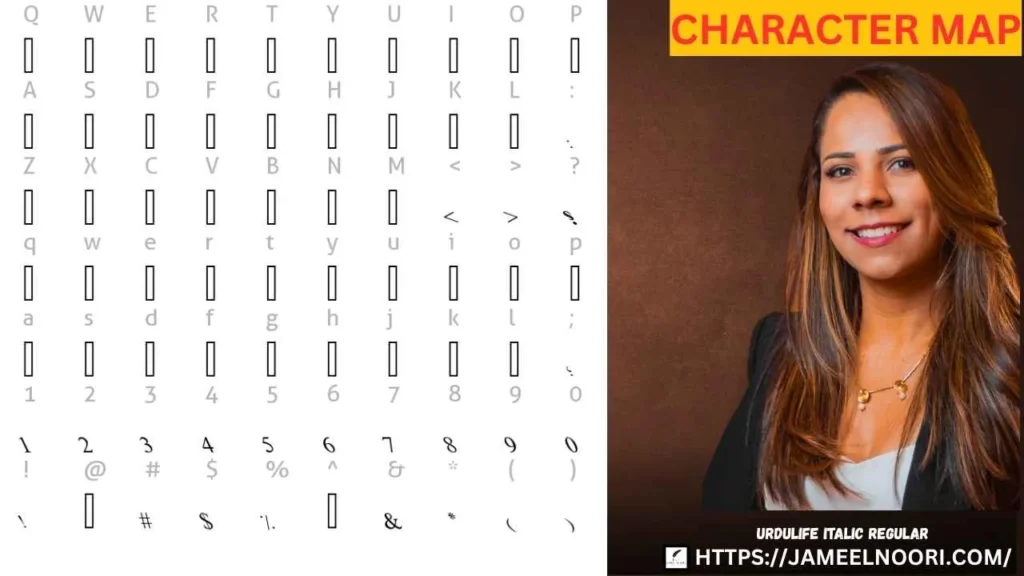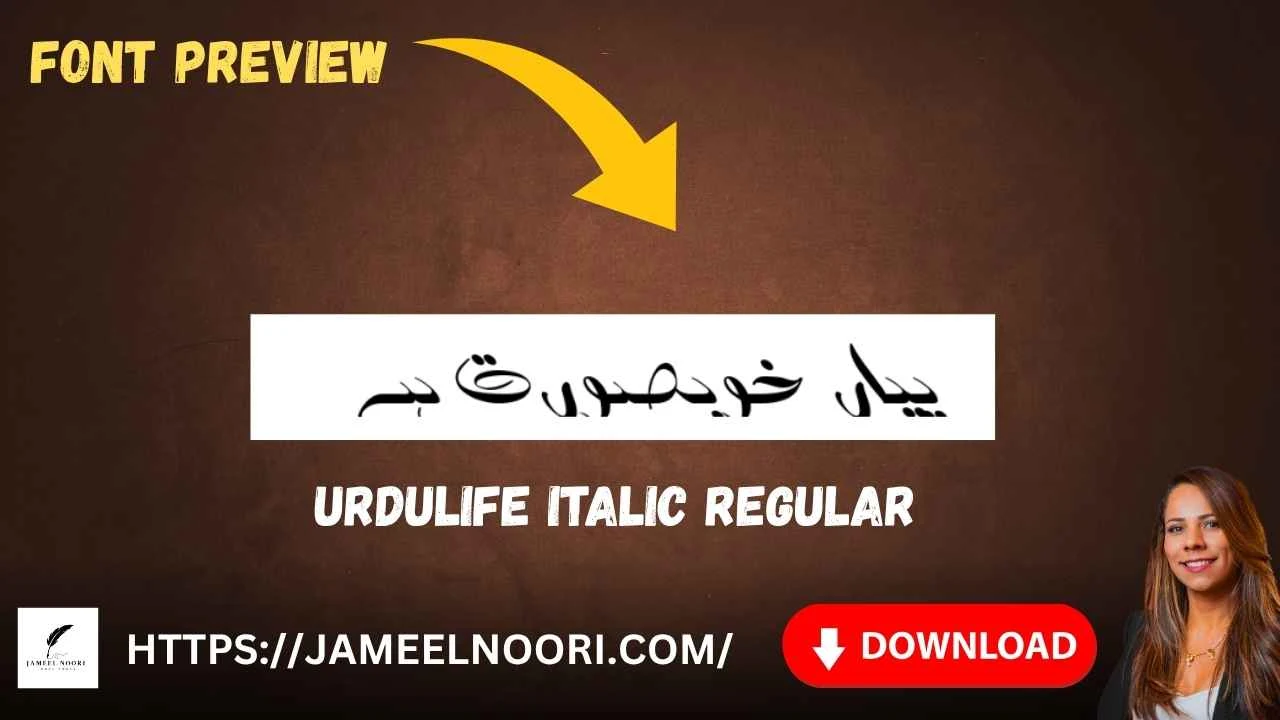
Introduction
If you’re looking for a clean, elegant, and versatile Urdu font for your creative or professional projects, the Urdulife Italic Regular Font is one of the best choices in 2025. This beautiful TrueType Font (TTF) brings together the traditional essence of Urdu Nastaliq style and the modern sophistication of italic design.
Why Choose Urdulife Italic Regular Font?
1. Elegant Italic Urdu Style
This font offers a sleek italic look that makes Urdu writing appear more dynamic and expressive. It’s perfect for creative Urdu typography and decorative writing.
4. Stylish Yet Readable
Unlike overly decorative fonts, Urdulife Italic Regular maintains a balance between style and legibility, ensuring your Urdu content looks beautiful and easy to read.
5. Great for Urdu Designers
Whether you’re creating poetry posters, brand logos, or news headlines, this font gives your Urdu typography a professional and classy edge.
Best Uses of Urdulife Italic Regular Font
You can use this font in a variety of Urdu design and content projects, such as:
- ✅ Urdu Poetry Graphics – Perfect for Instagram poetry posts.
- ✅ Headings & Titles – Adds elegance to Urdu blogs and news portals.
- ✅ Logo Designs – Gives Urdu brands a creative and soft appearance.
- ✅ Social Media Posts – Enhances Urdu quotes, captions, and digital flyers.
- ✅ Video Thumbnails – Ideal for Urdu YouTube creators and vloggers.
- ✅ Print Materials – Excellent for magazine headlines and poster art.
Design Features of Urdulife Italic Regular
- Smooth italic flow for enhanced Urdu text aesthetics.
- Crisp and sharp outlines for HD graphic design.
- Balanced spacing for readability in both small and large text sizes.
- Compatible with Urdu, Persian, and Arabic scripts.
- Easily pairs with English fonts for bilingual layout design.
Why Designers Love Urdulife Italic Regular
Designers love this font for its natural italic beauty and professional quality. It offers a unique balance of modernity and traditional Urdu elegance, which makes it suitable for both digital media and print projects.
The font’s lightweight design, combined with its smooth curves and bold edges, makes it versatile enough for both minimalist and decorative themes.